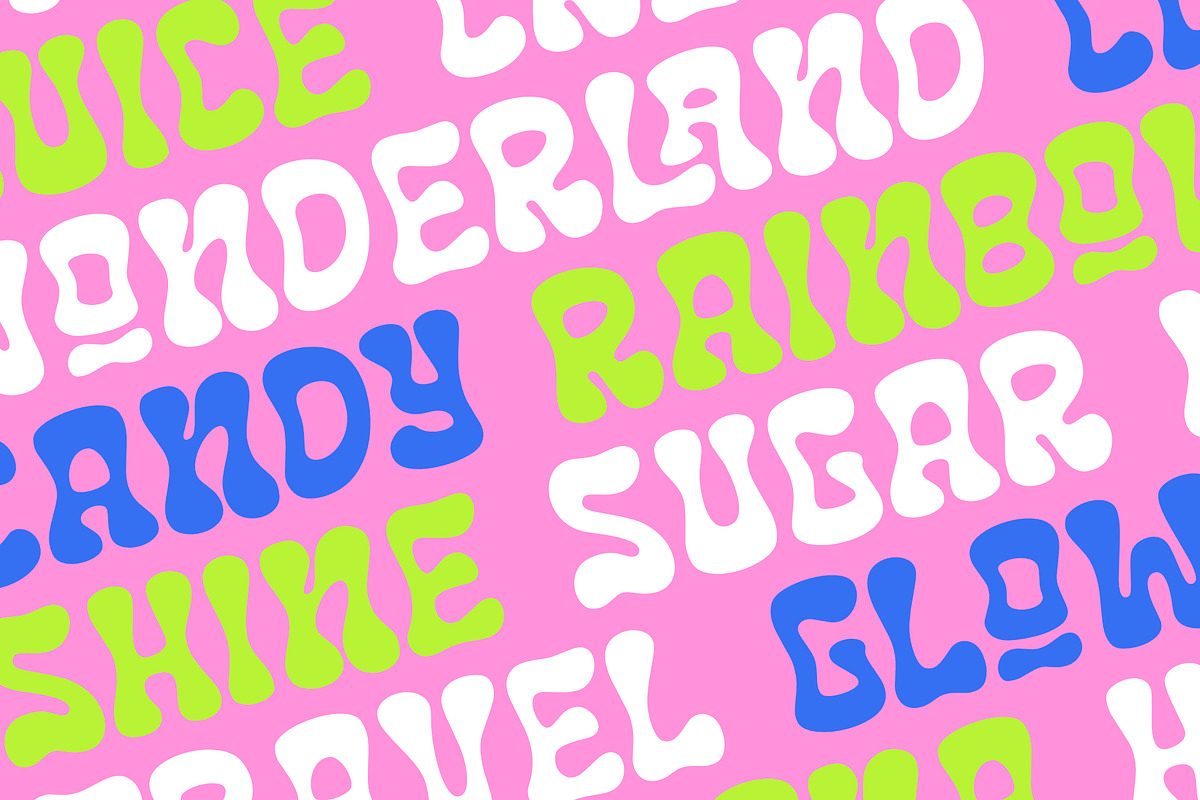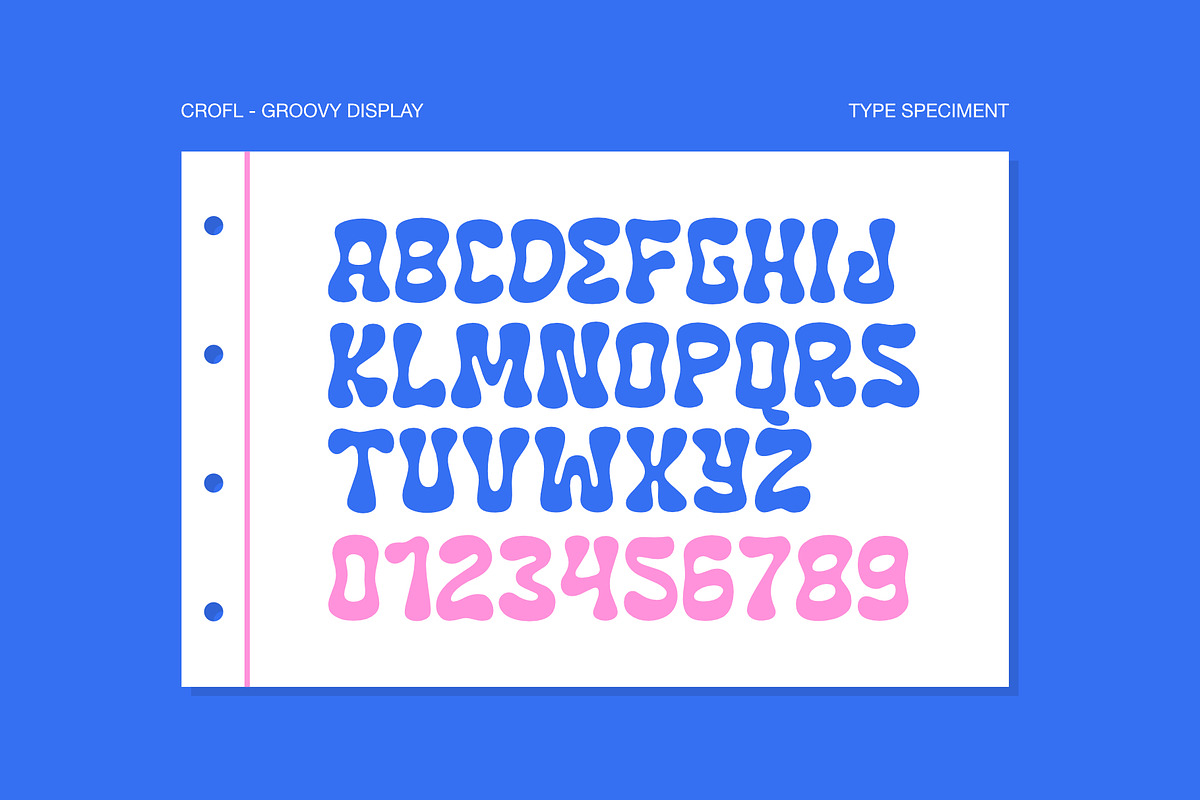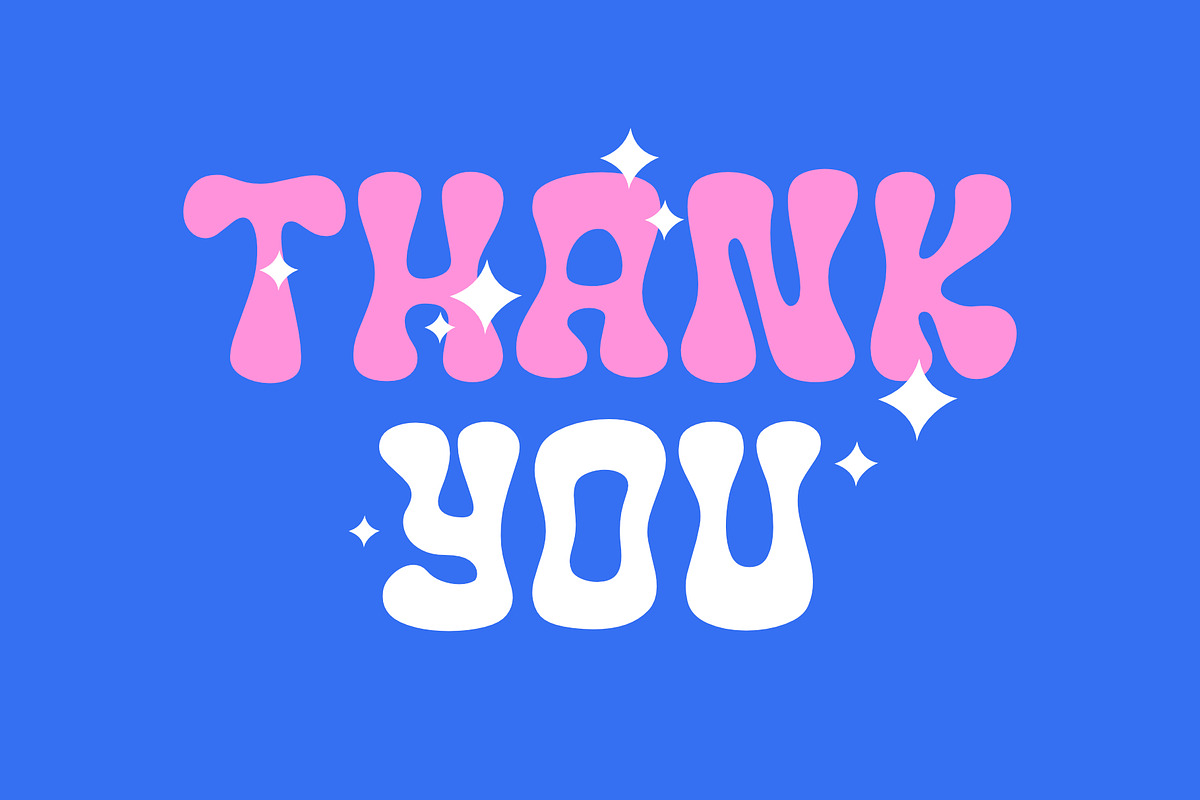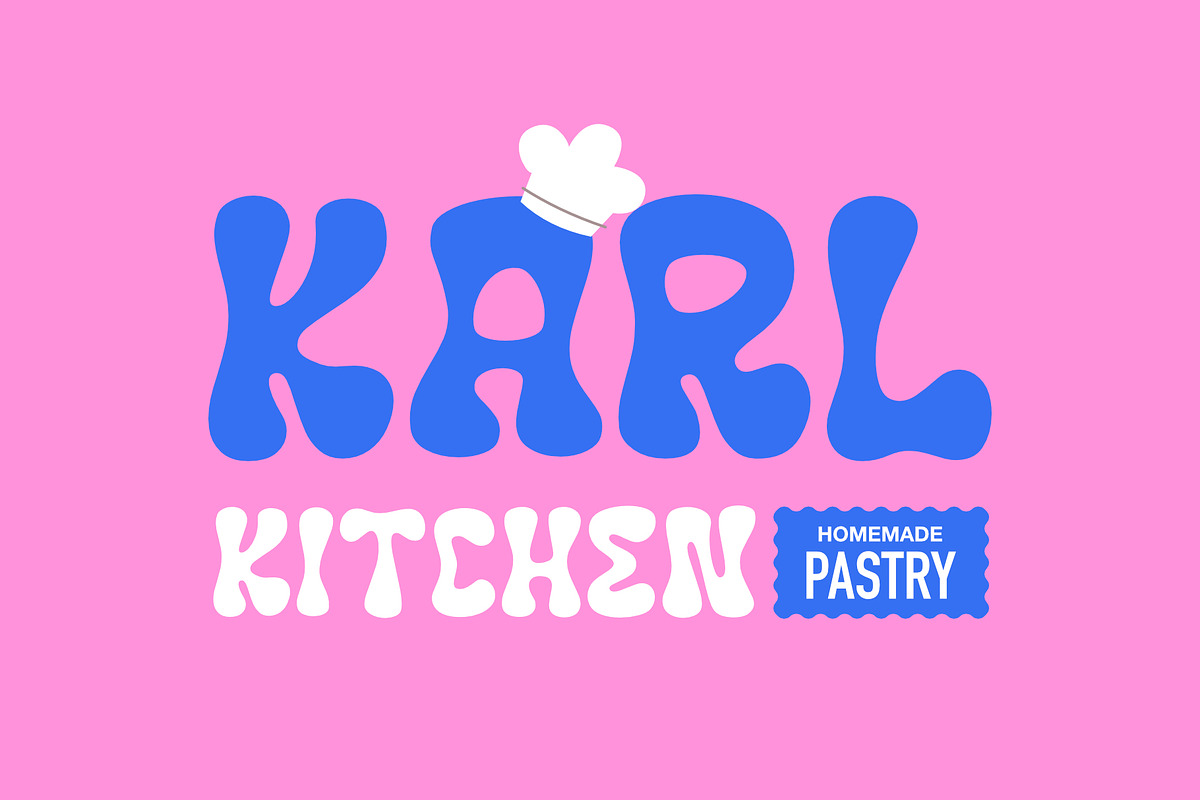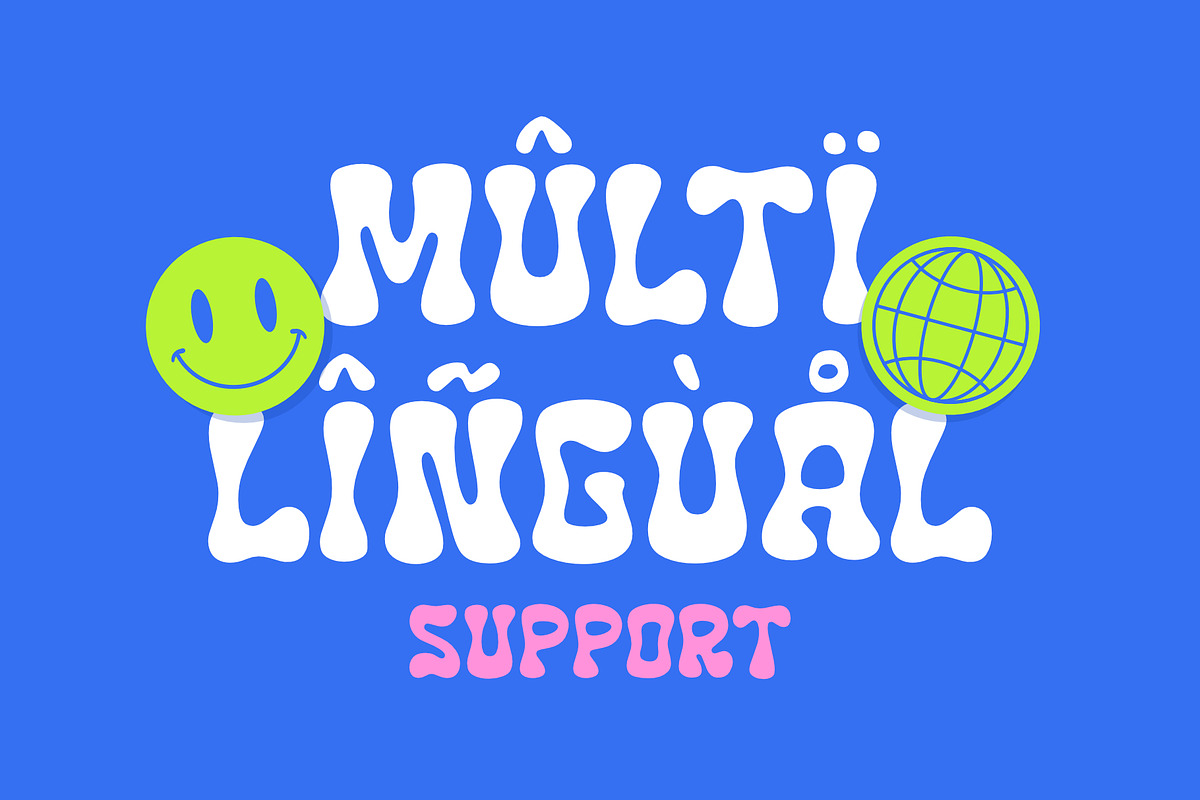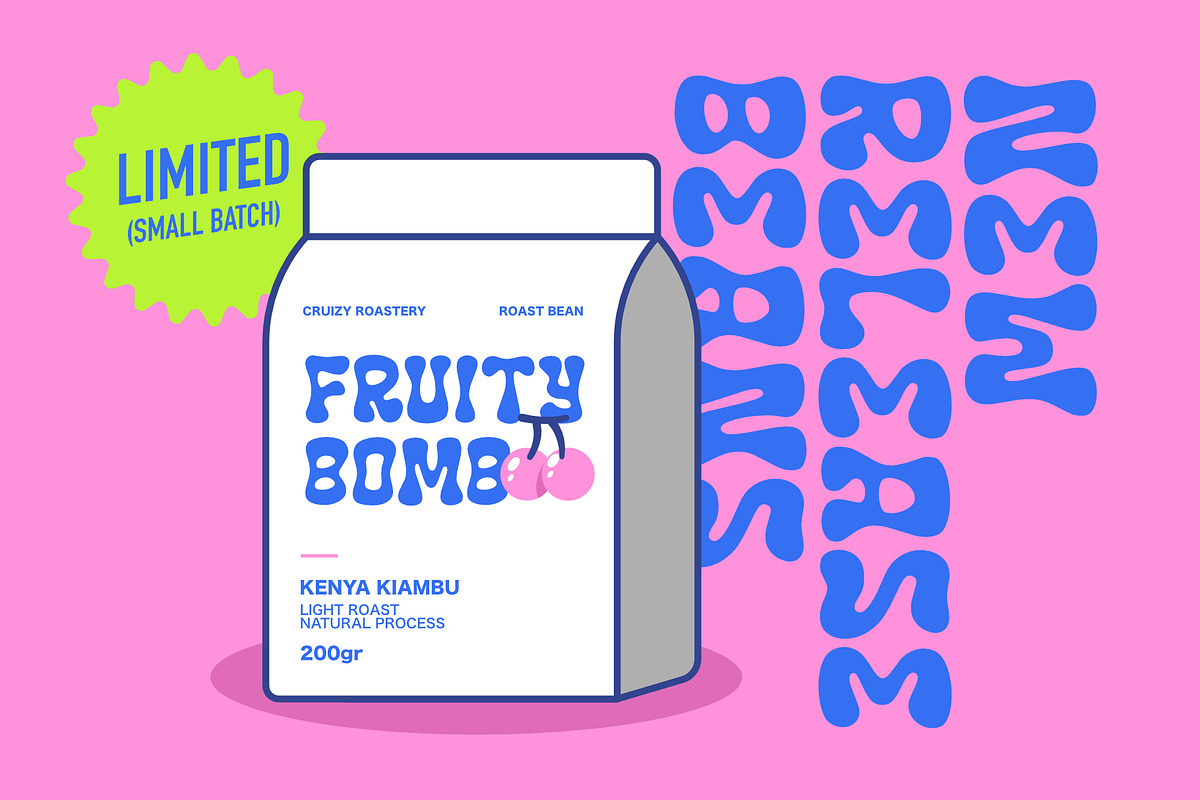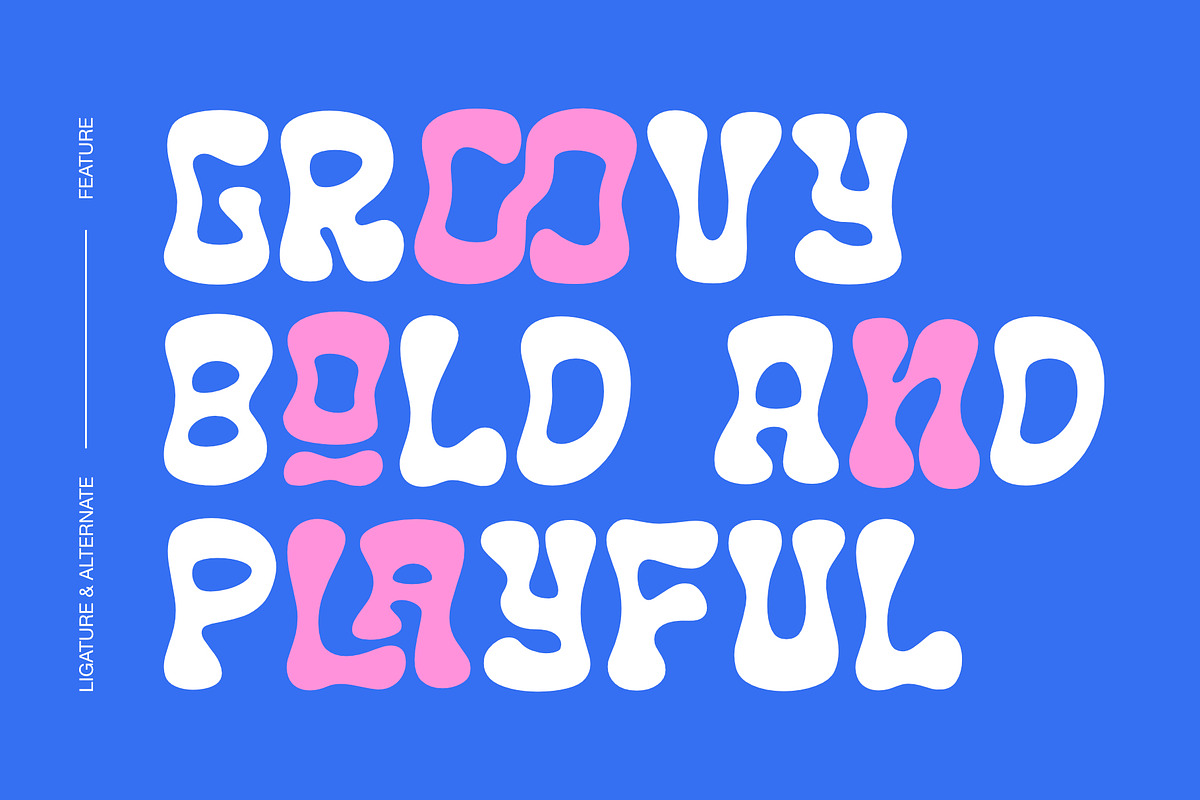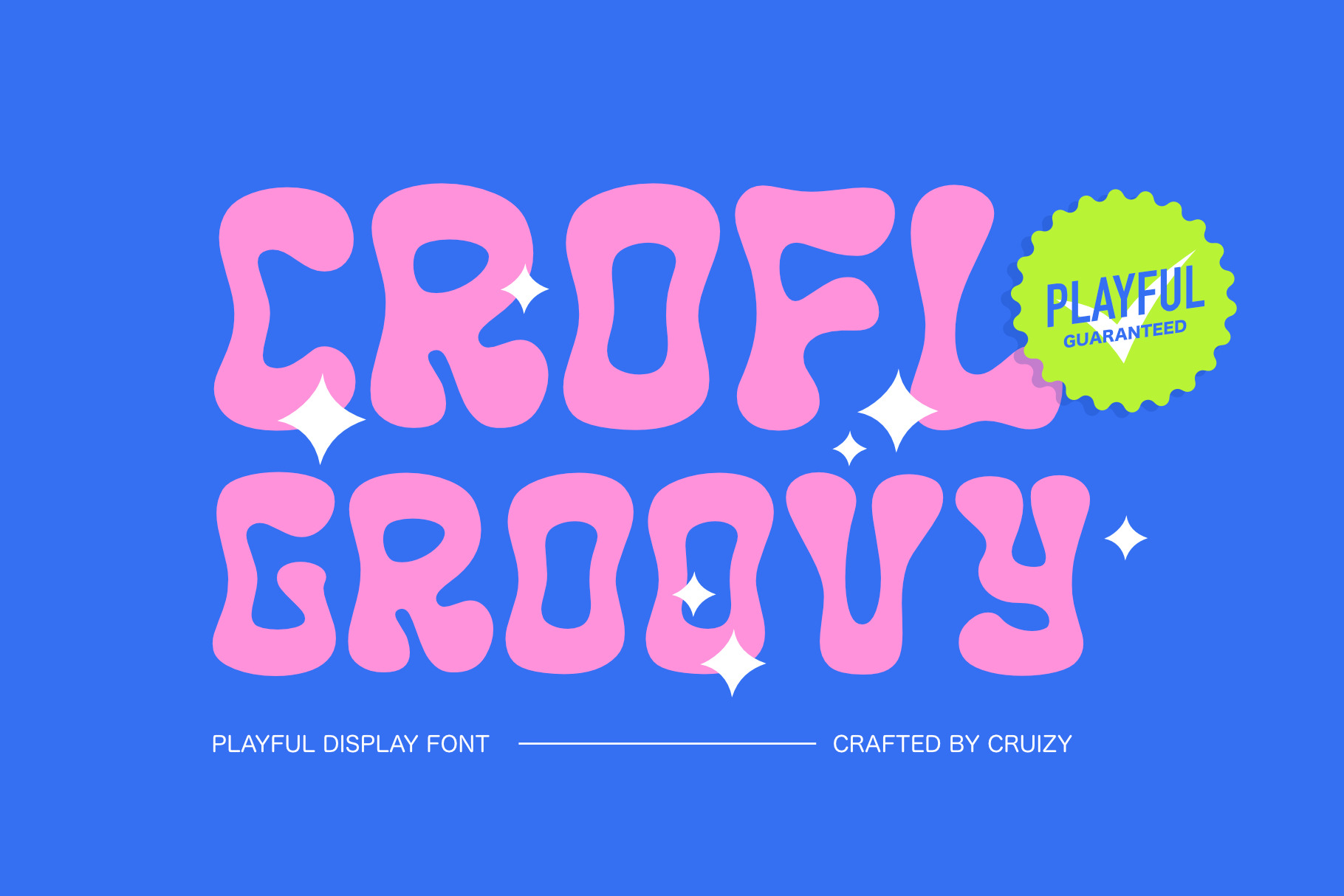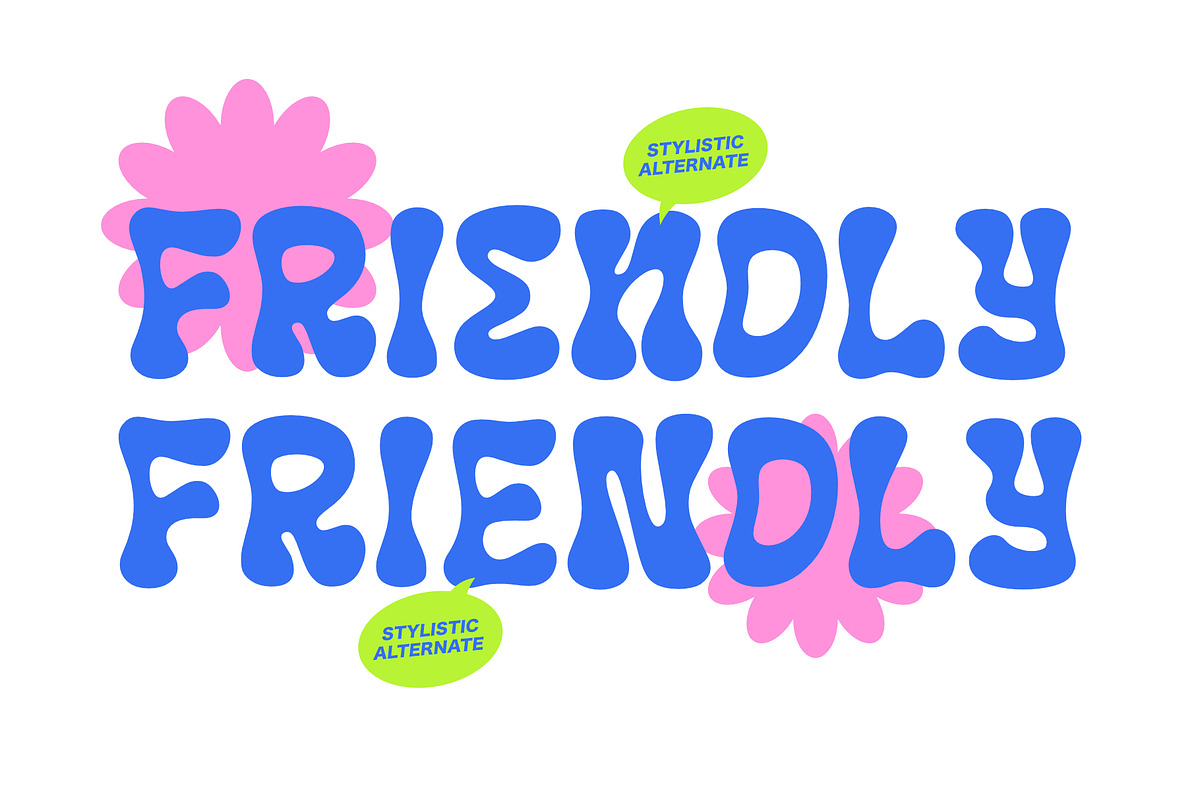
CROFL - Groovy Display Font
Make your design project more Fun and Playful with CROFL - Groovy Display Font. This All-Caps font included Ligature and Stylistic feature.
Although Bold and Groovy, CROFL - Groovy Display Font is very versatile. You can maximize your project using this font. For Book Cover, Poster, Packaging, Merchandise, Social Media Content, and many more.
Feature : All-Caps (A-Z) Numbers Punctuation Ligature Stylistic Alternate Multilingual
CROFL - Groovy Display Font , crafted by CRUIZY 2023